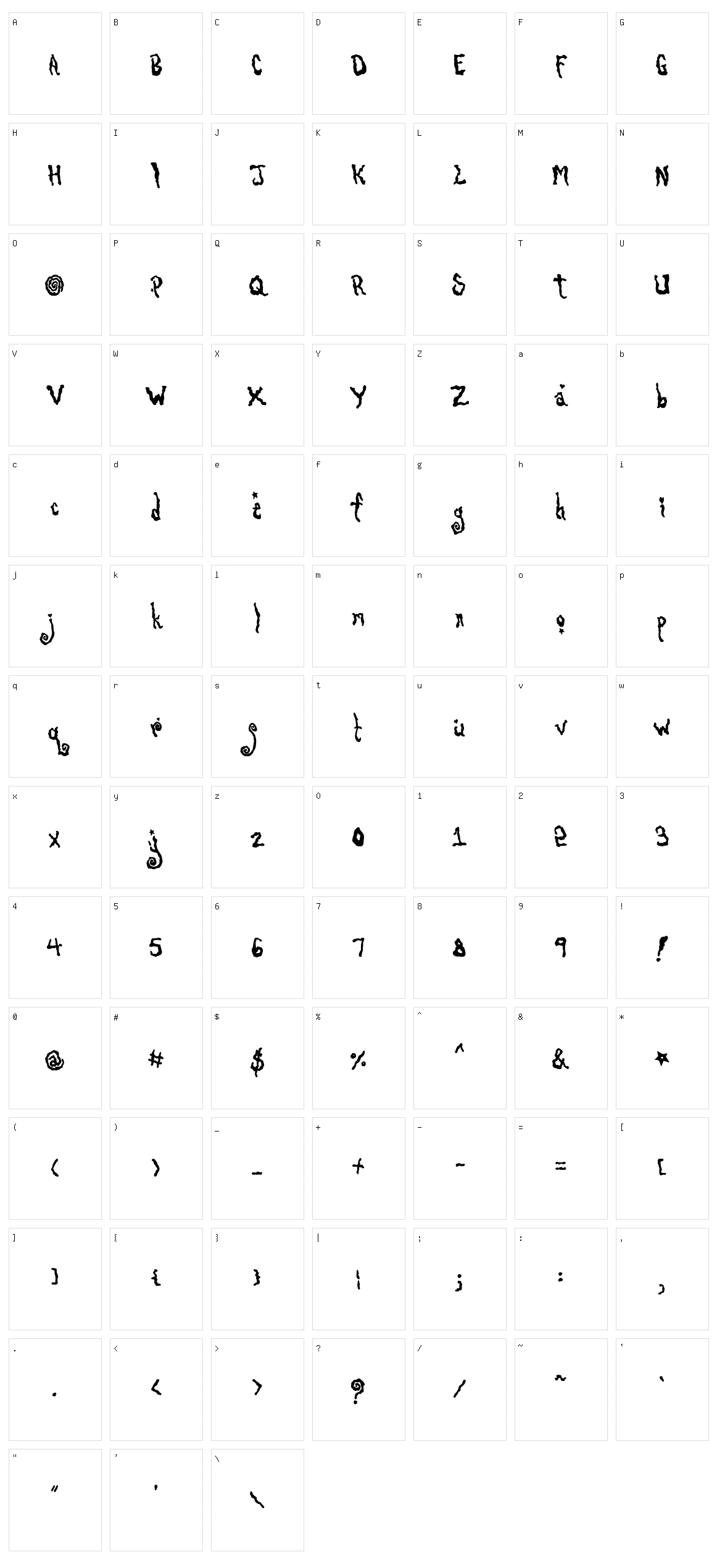
The free font Pretty On The Inside is carefully designed by Swearboy Inc., showcasing a thoughtful balance of creativity and usability and falls under the Script font style. When you download the ZIP file, it contains only 26.87 KB of font files, making it lightweight and quick to download. Please review the license details below to understand permitted usage and distribution rights. If license information is not available, we recommend using this font for personal projects only or contacting the author directly for commercial usage permissions.